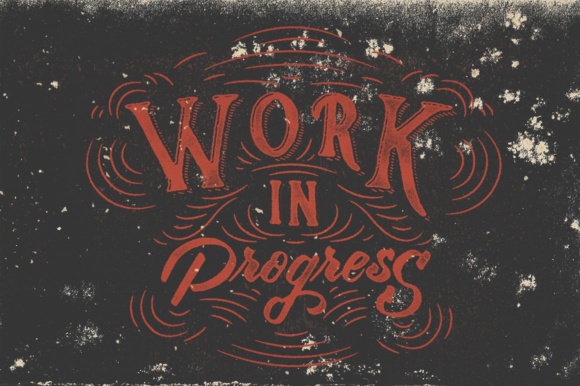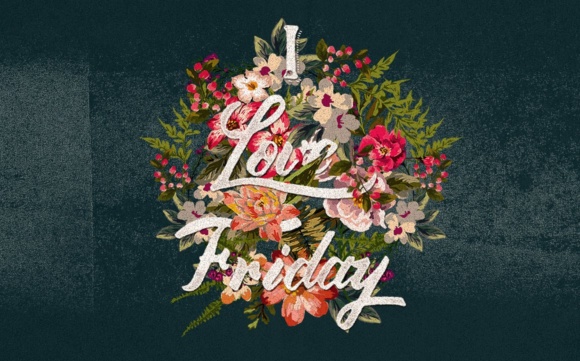
Rude Cookie Font
About Rude Cookie Font
The Rude Cookie is a striking font with unique characters. It comes in multiple weights which work perfect together. It will give you the change to create a perfect, unique design, every time you use it. The Rude Cookie comes with beautiful ornaments and a typographic quote poster as a bonus.